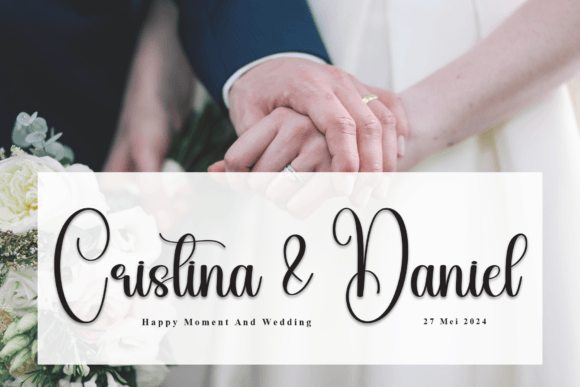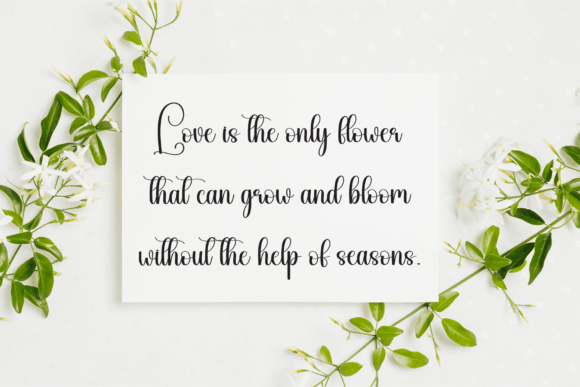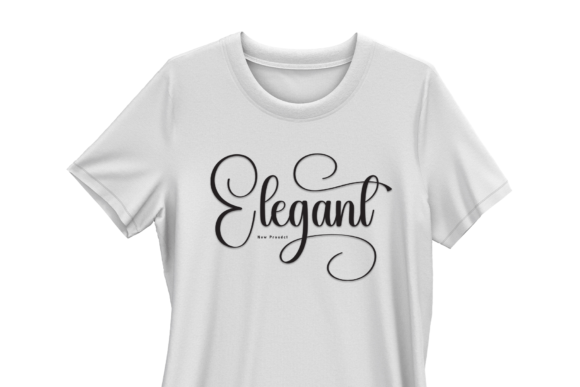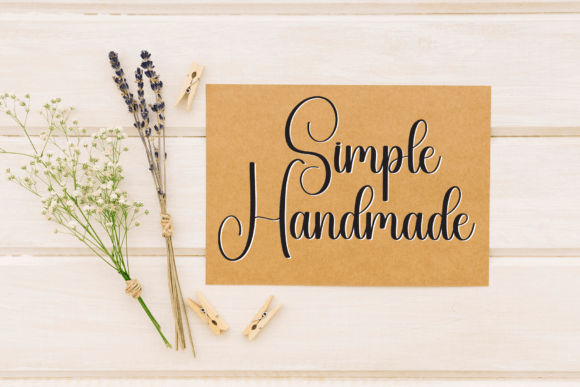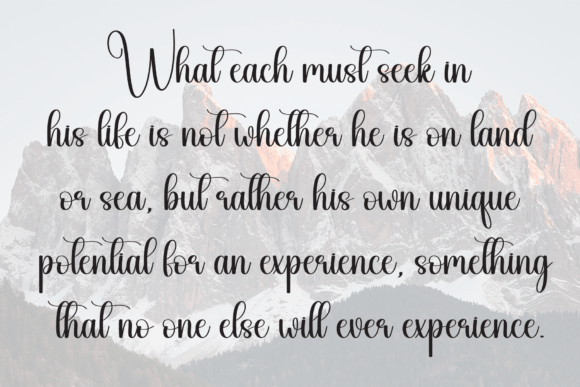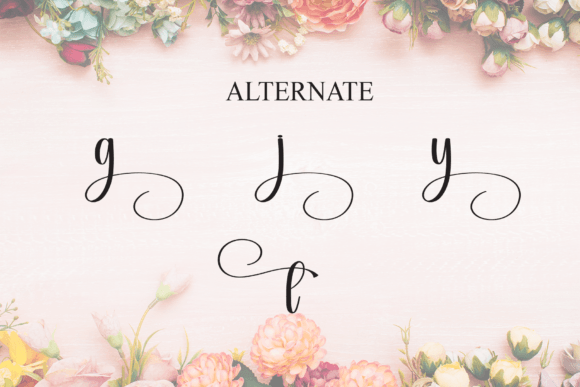
Introduction to Beautyful Font
Beautyful is a stylish and incredibly elegant script font.
Key Features of Beautyful Font
Why Choose Beautyful Font?
Beautyful Font offers exceptional quality and versatility, making it a valuable addition to your design toolkit. Whether you’re creating for personal projects or commercial use, Beautyful Font delivers professional results.